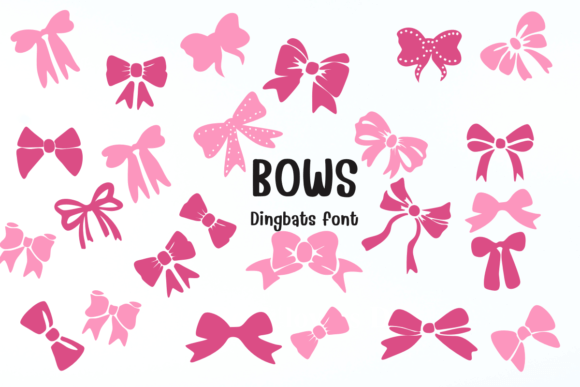
The Perfect Touch: Elevating Your Creative Projects with Bows Font
Do you remember the excitement of designing your first wedding invitation or crafting a handmade card for a loved one? The spark of creativity that ignites when you combine colors, textures, and typography is truly magical. For designers and crafty enthusiasts alike, finding the right font can make all the difference in bringing a project to life.
Bows Font is a charming dingbats font that adds a playful touch to any design. With its cute decorative style, it’s perfect for enhancing wedding invitations, DIY projects, crafts, decorations, logos, and more. As a designer, you’ll appreciate the versatility of Bows Font, which can add a whimsical flair to your creations.
Bows Font Key Features
- Font Family: Bows is a unique, hand-drawn font family with a playful and whimsical feel.
- Character Set: Includes a wide range of characters, including uppercase and lowercase letters, numbers, and punctuation marks.
- Unique Characteristics: Bows font features a distinctive, hand-drawn style with intricate details and subtle variations, making it perfect for adding a touch of personality to designs.
Bows Font Review
I’ve had the chance to work with the Bows Font, and I must say it’s been an interesting experience. Here’s my honest review.
- Unique and playful design: Bows Font is perfect for adding a touch of whimsy to your designs. Its intricate details and flourishes make it stand out from more traditional fonts.
- Good for headings and titles: The font’s larger sizes look great, and its bold lines make it perfect for grabbing attention.
- Works well with creative content: Bows Font is ideal for designs that require a touch of personality, such as children’s books, party invitations, or social media graphics.
- Difficult to read in smaller sizes: While the font looks great in larger sizes, it can become difficult to read when reduced to smaller sizes.
- May not be suitable for formal content: Due to its playful nature, Bows Font may not be the best choice for formal or professional designs.
The Bows Font is a great choice for designers looking to add some personality to their work. While it may have some limitations, its unique design and versatility make it a valuable addition to any font collection.
Tips for Getting the Most Out of Bows Font
Use Bows Font to add a touch of whimsy and playfulness to your designs. Experiment with different font sizes, colors, and styles to create visually appealing text elements. Consider pairing Bows Font with other fonts to create a unique and eye-catching look.
Bows Font is perfect for:
- Creating custom invitations and party decorations.
- Designing children’s books and educational materials.
- Developing brand identities and logos for playful and whimsical businesses.
Alternatives to Bows Font
Great Vibes is a beautiful, elegant script font that is perfect for adding a touch of sophistication to your designs. It’s ideal for use in logos, invitations, and other materials where a handwritten feel is desired.
Compared to Bows Font, Great Vibes has a more refined and polished appearance, making it suitable for a wider range of applications.
Lobster is a fun, casual script font that is great for adding a playful touch to your designs. It’s perfect for use in advertisements, social media graphics, and other materials where a lighthearted feel is desired.
Compared to Bows Font, Lobster has a more relaxed and informal appearance, making it suitable for a different type of design project.
Pacifico is a beautiful, elegant script font that is inspired by the Pacific coastline. It’s perfect for use in logos, invitations, and other materials where a sense of calm and serenity is desired.
Compared to Bows Font, Pacifico has a more refined and sophisticated appearance, making it suitable for a wider range of applications.